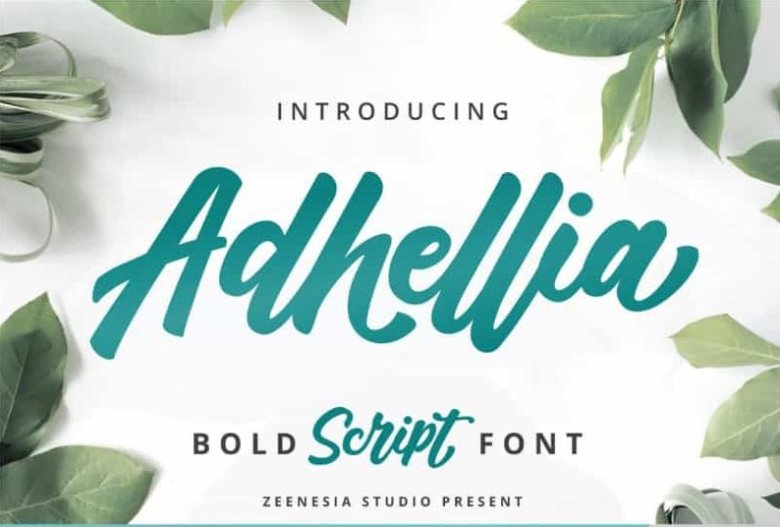
Adhellia Script Font
Adhellia Script Font with a natural & stylish flow. Made from font designer zeenesia. Adhellia is a sweet and brushed handwritten font. This font is PUA encoded which means you can access all of the glyphs and swashes with ease! Assertive and flowing, this font will make each of your creations come alive! suitable for branding, signature, wedding invitation, promotion, product packaging, and other needs. This font is modern, simple, but still authentic.